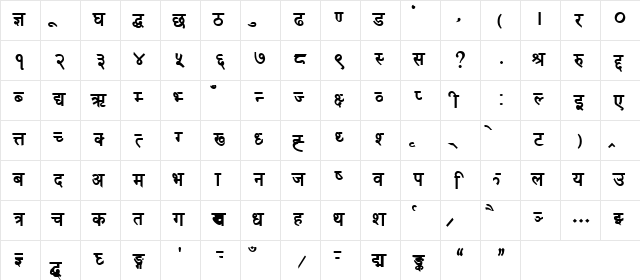
DINA FAT Normal Font Preview
DINA FAT Normal
Design Context for DINA FAT Typeface
DINA FAT offers clean, dependable letterforms without strong stylistic allegiance, making it a practical choice for designers who need flexibility.
Pro Tip: Pair DINA FAT with a font of contrasting weight or personality to build a more expressive typographic hierarchy.